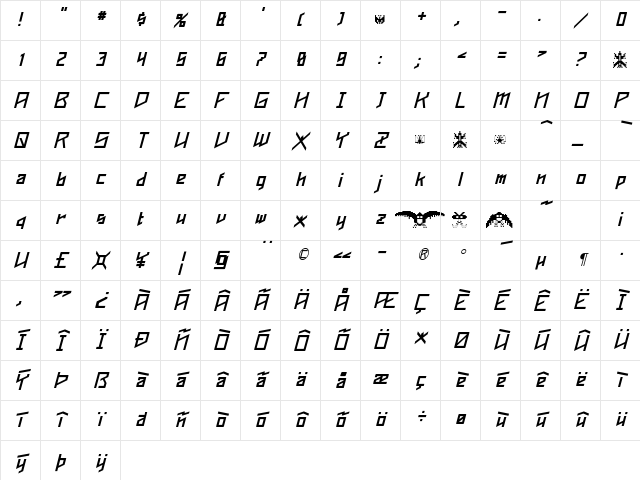
Phoenixians Italic Free Font
Phoenixians Italic
Foundry: Pixel Sagas
Designer: Neale Davidson
Design Context for Phoenixians
Phoenixians is a composed and adaptable typeface that performs quietly and consistently across a wide range of design contexts. The slanted form adds forward momentum and visual energy.